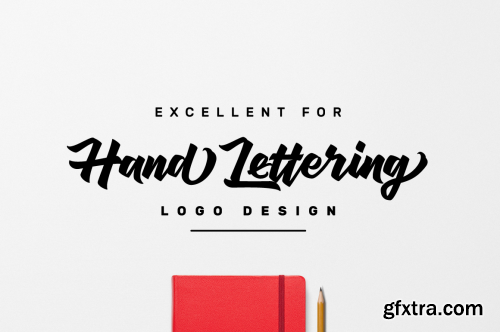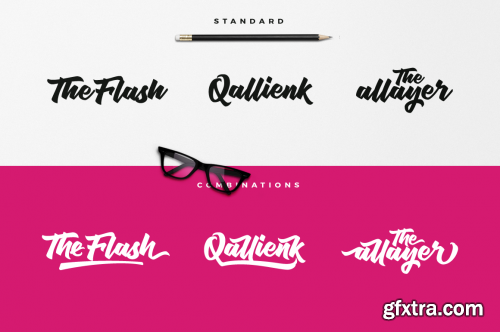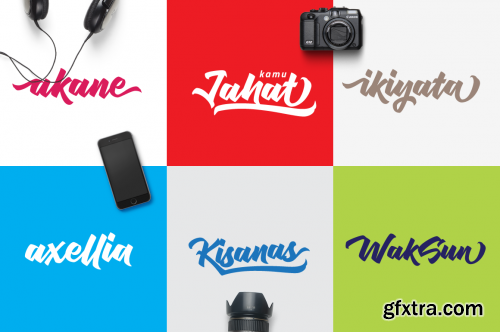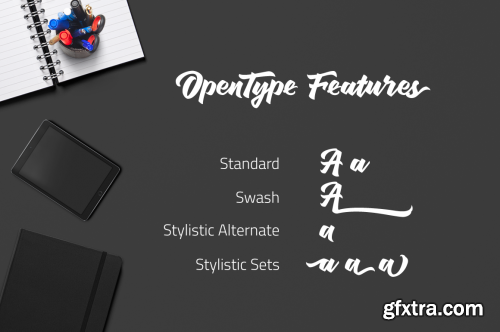
- Sinisuka an excellent typeface for modern hand lettering logo designs. and suitable for any design needs, branding, modern advertising design, Art Quote, Book/Cover Title, special events, custom mug, pillow, t-shirts, any brush lettering needs and more. What's Included : Sinisuka Typeface ( .ttf & .otf) comes with upper and lowercase Standard Characters, Punctuation, Numerals. And other Glyphs variation of the OpenType features such as Standard Ligature, Stylistic Alternate and Stylistic Set (ss01, ss02, ss03, ss04), and Swash. Accessible in the Adobe Illustrator and adobe indesign Glyphs panel, or under Stylistic Alternates in the Adobe Photoshop OpenType menu. Sinisuka Swashes, an extras 35 swashes to add punch to your designs (ttf, otf, ai, eps) Good news ! The Standard License for Fonts now covers Commercial use. Installable items (Fonts and Add-Ons) can be used in an unlimited number of projects and End Products for Sale. Thank you for your purchase! and hope you're having fun with Sinisuka ! Happy creating! Yipia Nesia Studio Malang - Indonesia